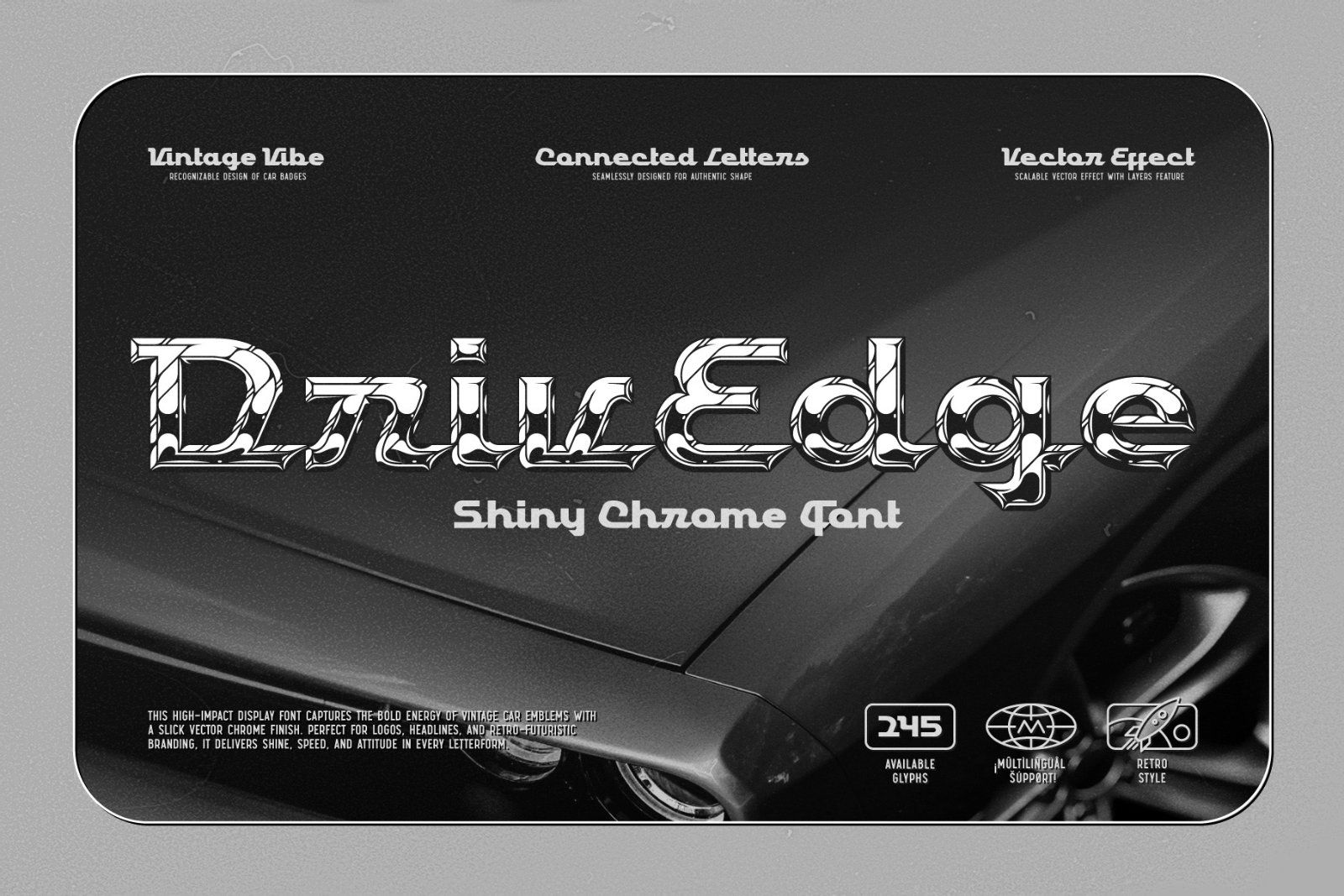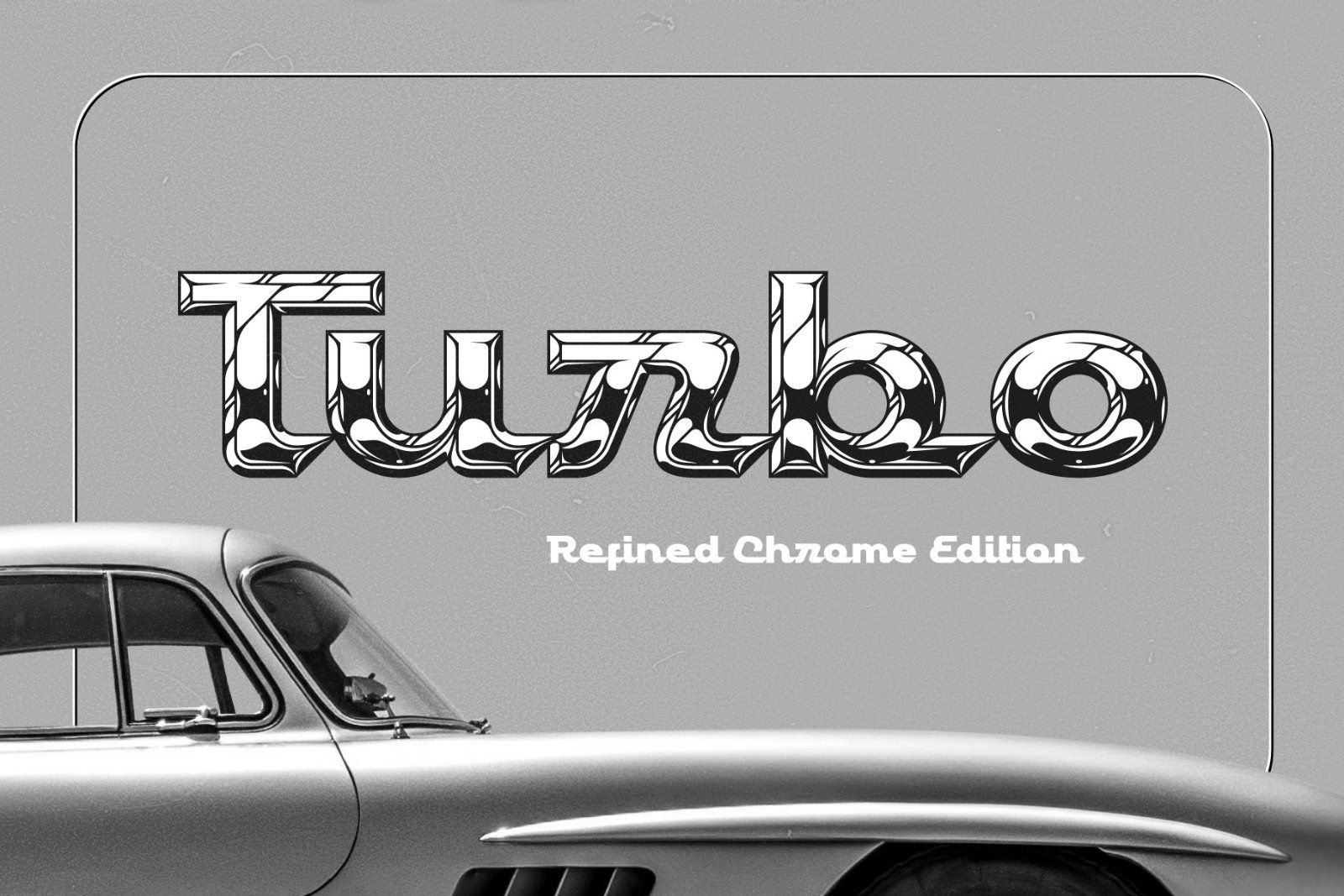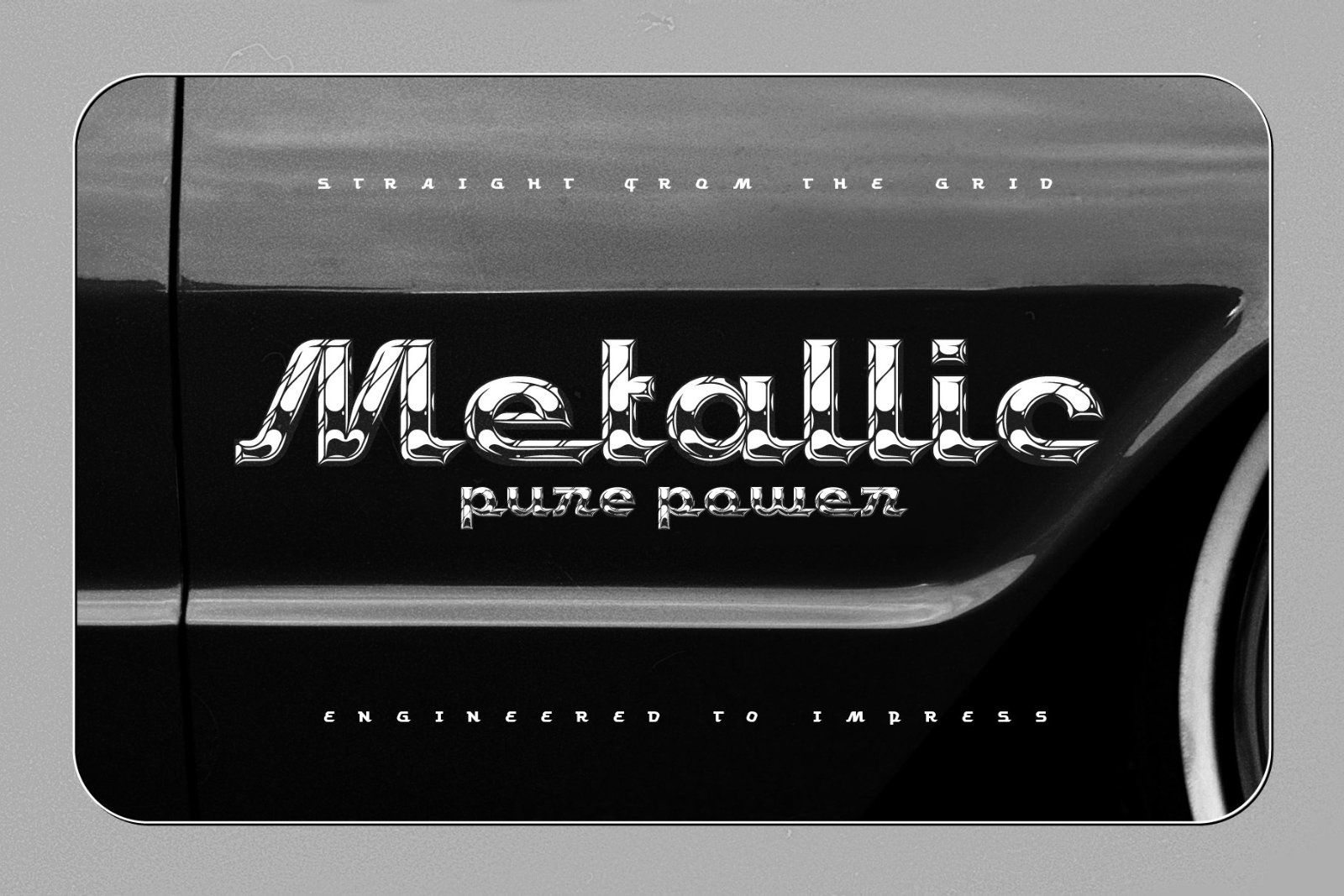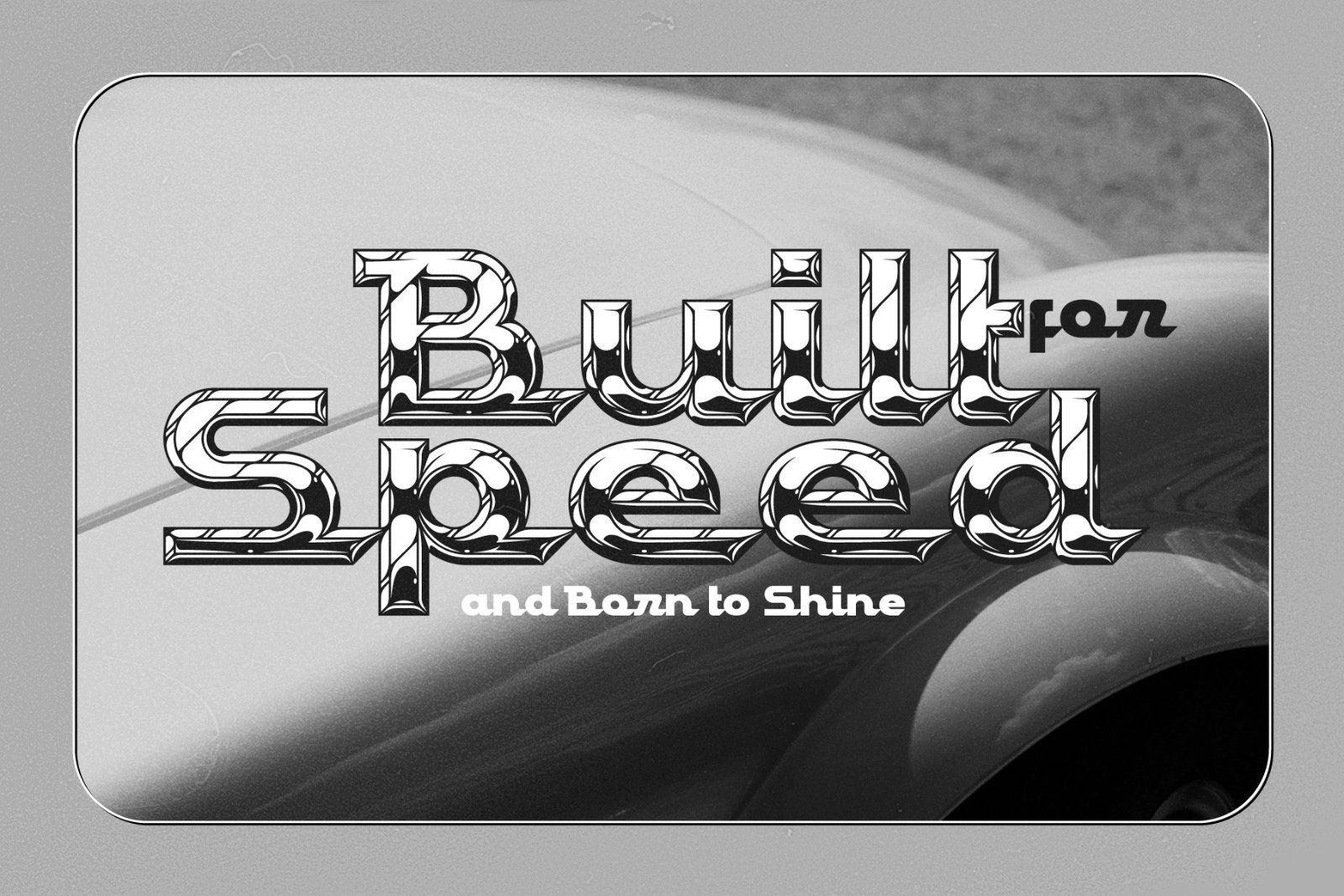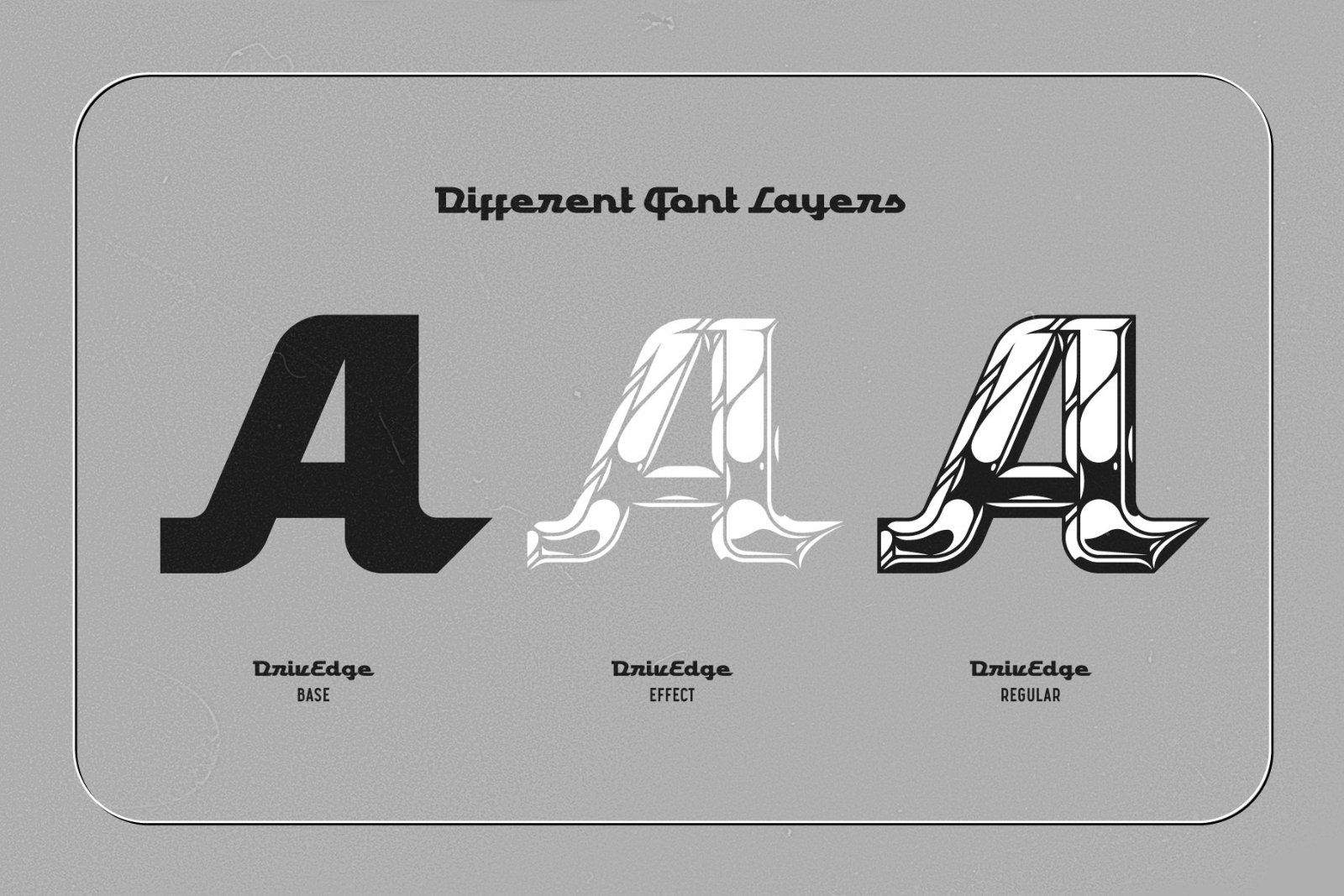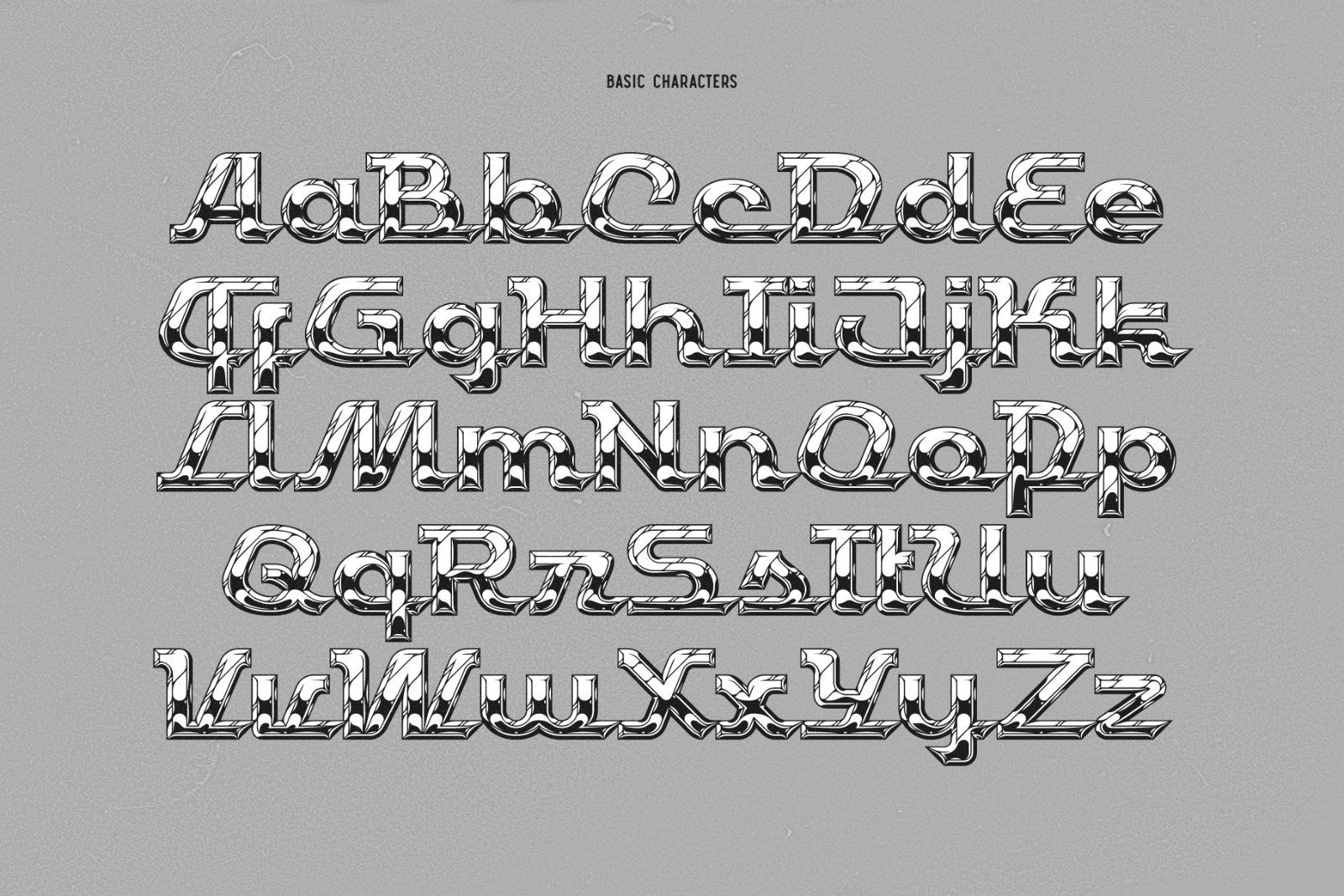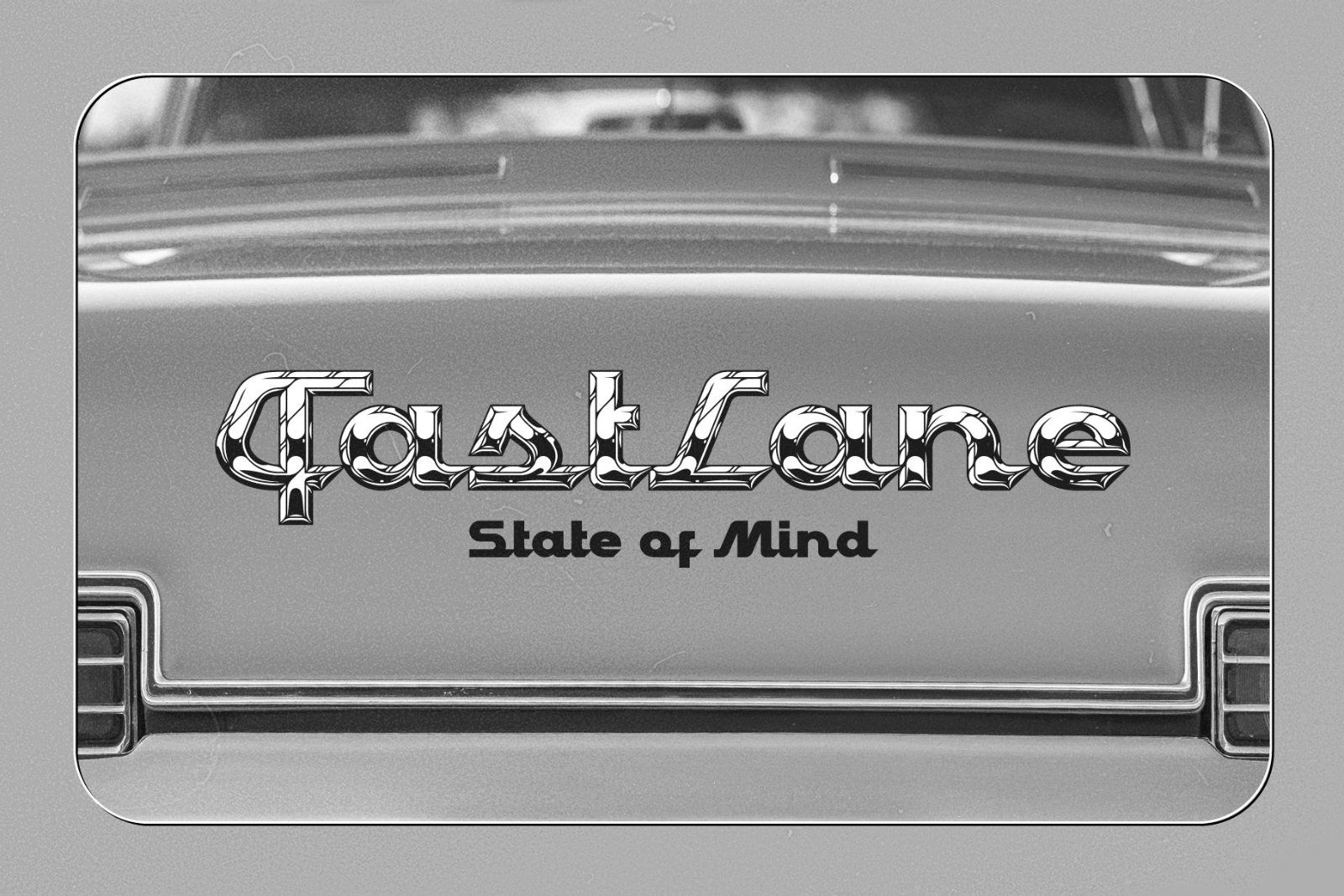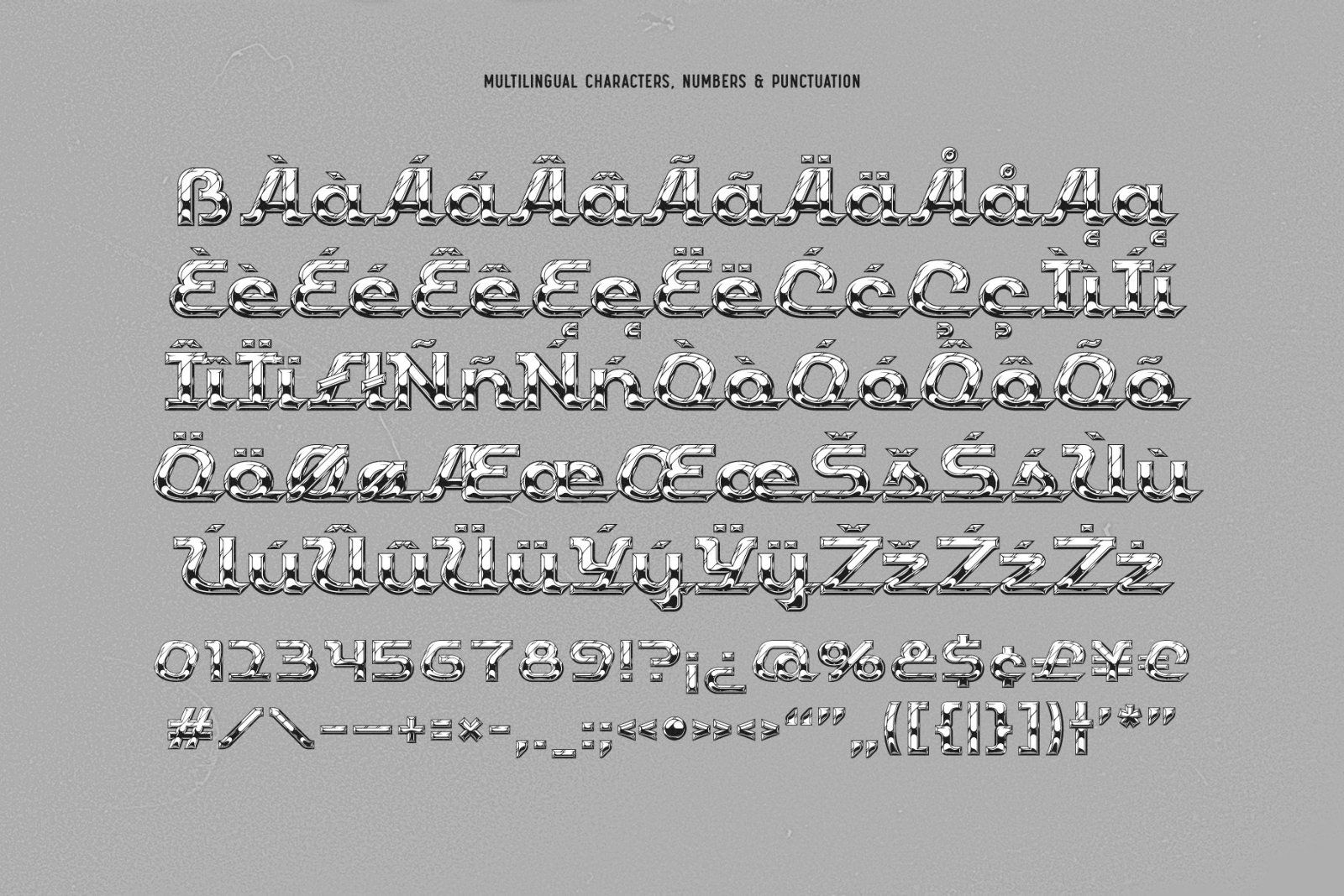
Hi, introducing a shiny chrome font — DrivEdge. This high-impact display font captures the bold energy of vintage car emblems with a slick vector chrome finish. Perfect for logos, headlines, and retro-futuristic branding, it delivers shine, speed, and attitude in every letterform.
DrivEdge has three fonts: base shape, chrome effect layer and a combined regular font. Also it offers multilingual support — check out the screenshot to see the full character set!